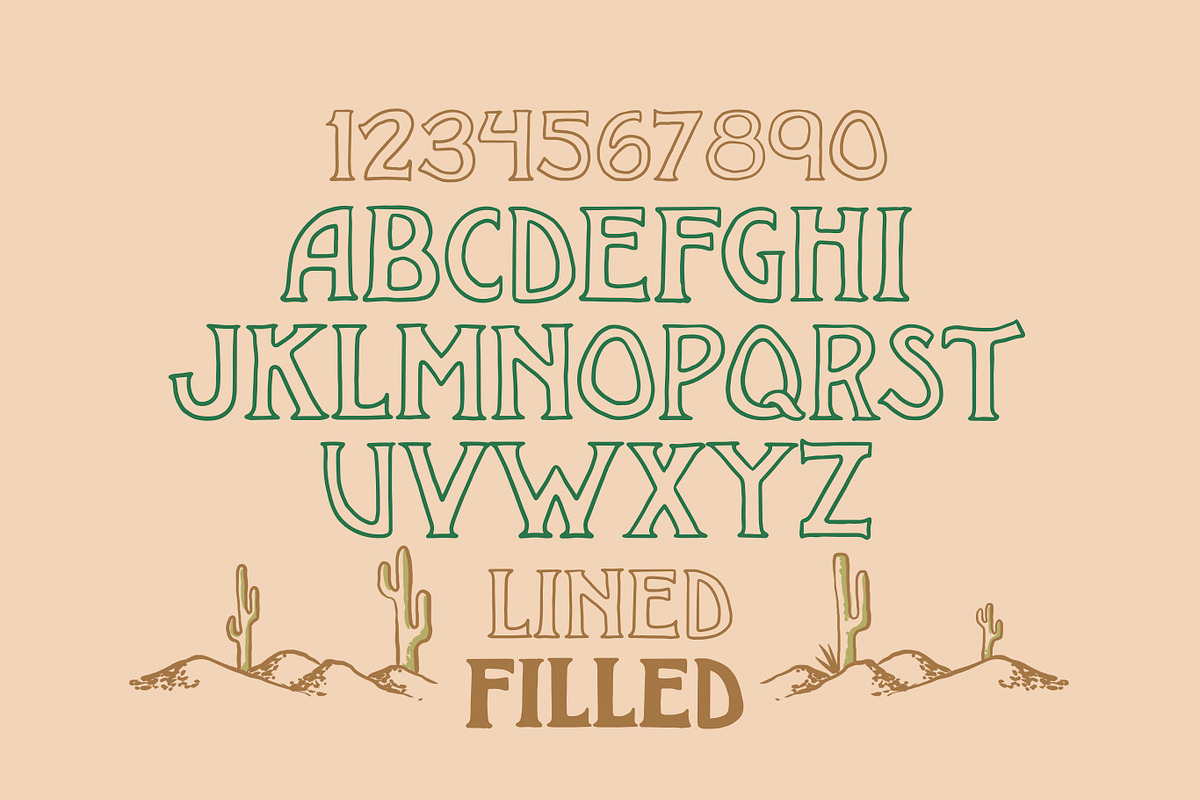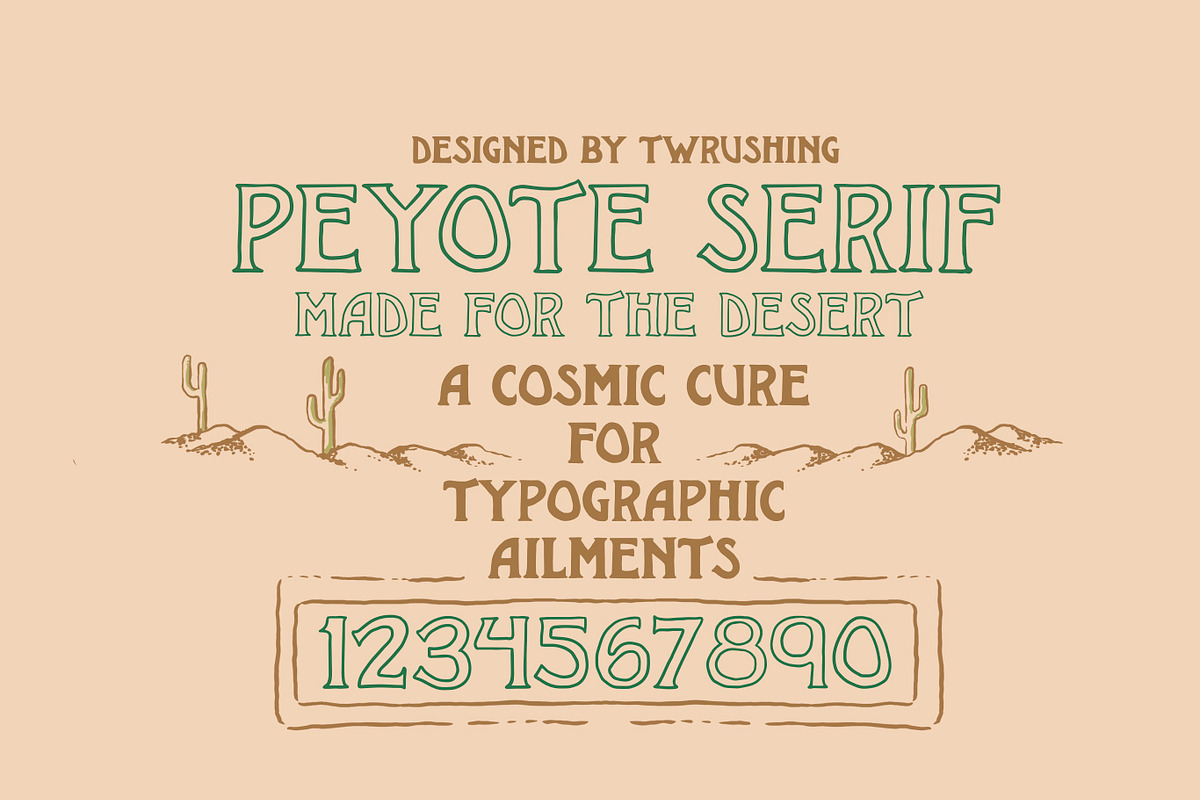
Peyote Serif - Designed by TWRUSHING
Based off the great concert posters of the 70's, this font was built for back to the land, geodesic domes and hippie cults. Comes with basic punctuation. Filled and lined out.